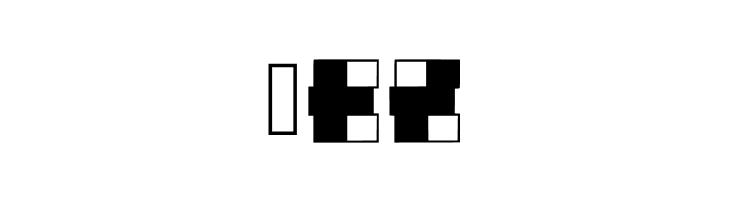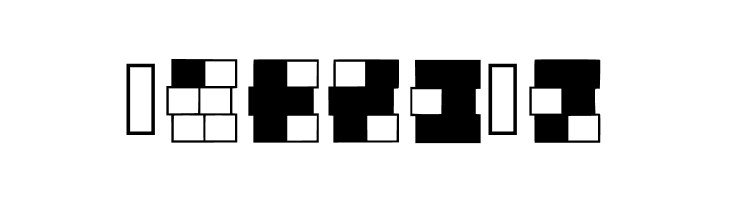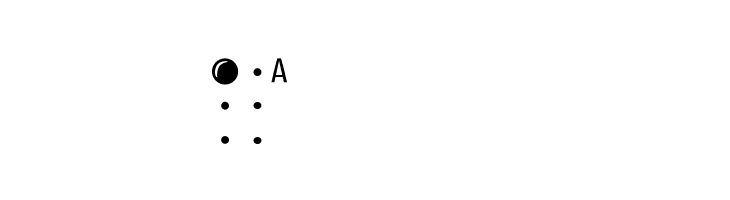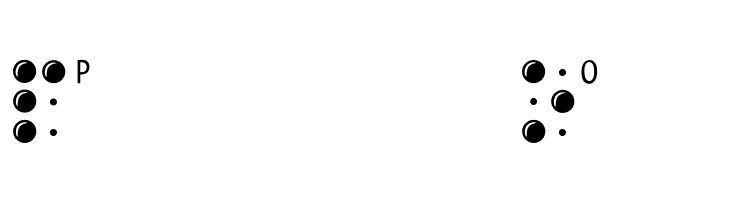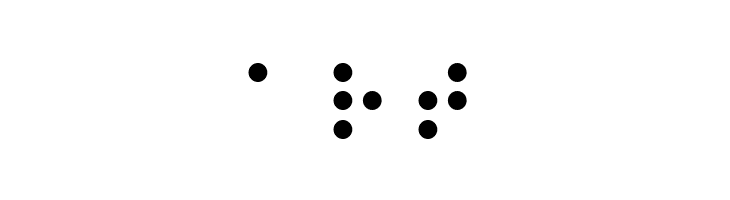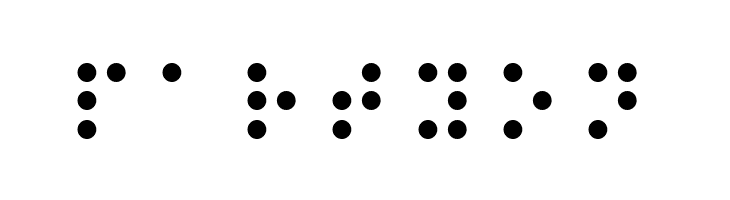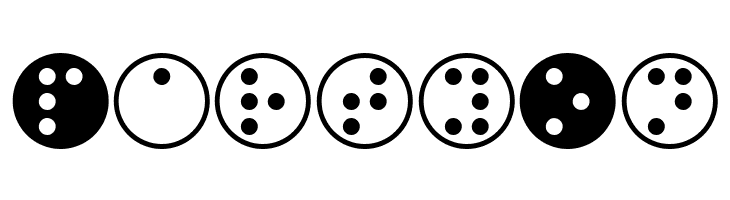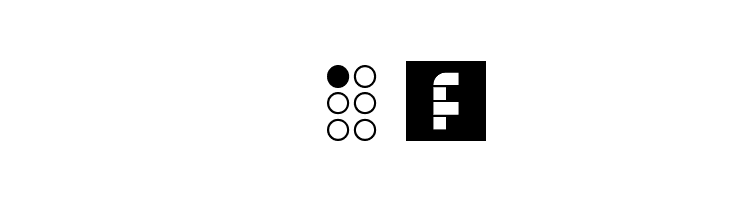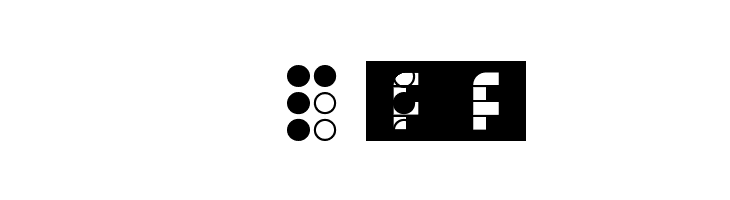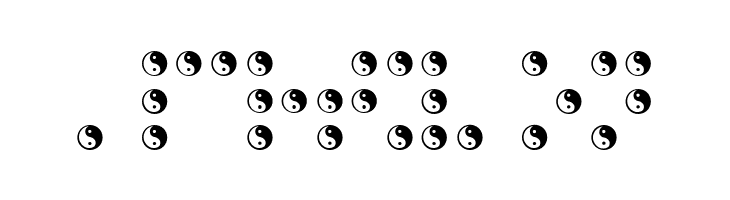
A tactile writing system using raised dots for visually impaired readers.
( BRAILLE TAIJITU )
A Braille-inspired font featuring yin-yang symbols for a harmonious visual and tactile experience.
A geometric, grid-based font with a modern, abstract style.
A futuristic, abstract font with geometric shapes and a minimalist design.
A tactile writing system using raised dots for visually impaired readers.
A visually appealing Braille-inspired font with consistent dot patterns.
A tactile writing system using raised dots for visually impaired individuals.
Braille is a tactile writing system for the visually impaired, using raised dots for characters.
A hollow, regular Braille font for visual representation.
A Braille font representing characters with raised dot patterns for tactile reading.